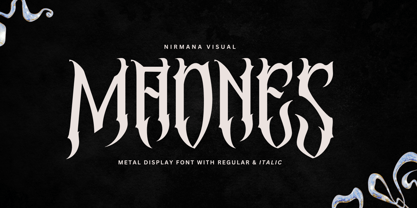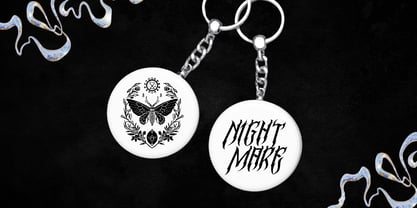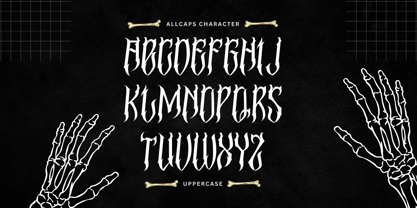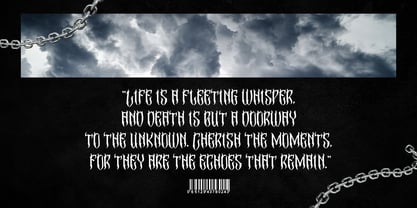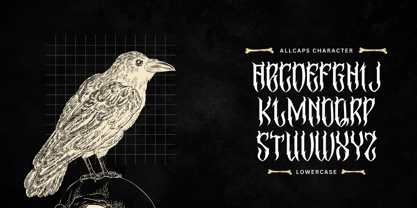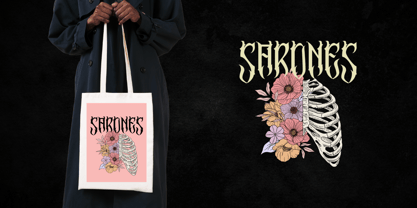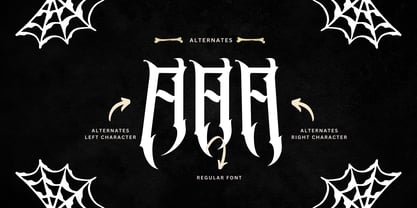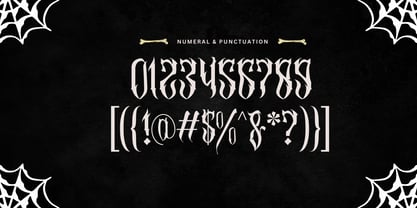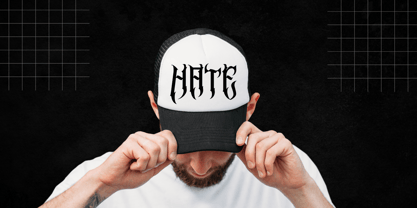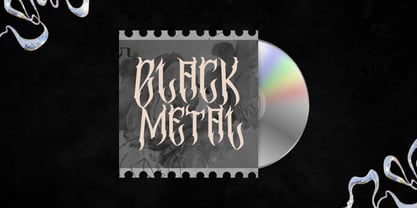
Madnes Blackletter
por Nirmana Visual
A família de fontes Madnes Blackletter foi desenhada por Sigit Dwipa e publicada pela Nirmana Visual. Madnes Blackletter contém 2 estilos e opções de pacote familiar. Saiba mais sobre esta família
Madnes is a bold Blackletter font, crafted for impact and attitude. Perfect for metal bands, tattoos, and rebellious designs, it brings gothic intensity with sharp, angular strokes and dramatic flair. Madnes embodies the raw edge of underground culture ideal for logos, posters, or any design that needs a dark, powerful vibe. Let your message scream with style using this special font.
Designers: Sigit Dwipa
Fundição: Nirmana Visual